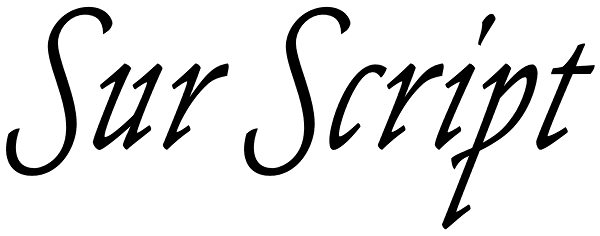
FDI Tierra Nueva
Four fonts — found on a map of America, created by the spanish cartographer Diego Gutiérrez and the dutch engraver Hieronymus Cock anno 1562. From the start of the digitization by Sebastian Nagel in 2005, Tierra Nueva has gone a long way. On its...
Norte Bold
Norte Italic
Norte Regular
Sur Script